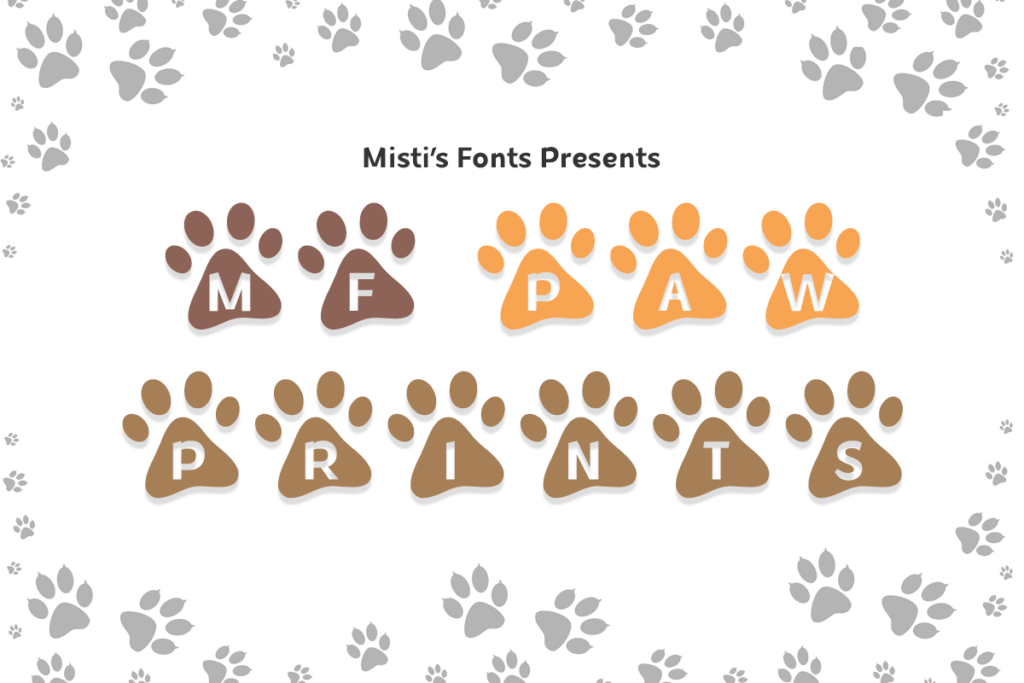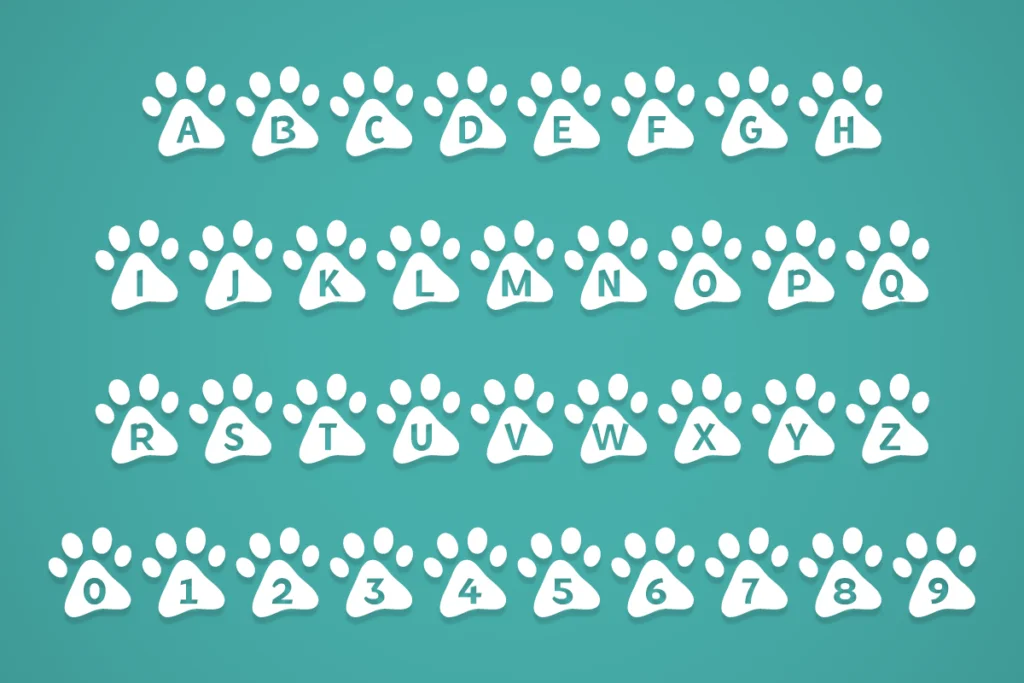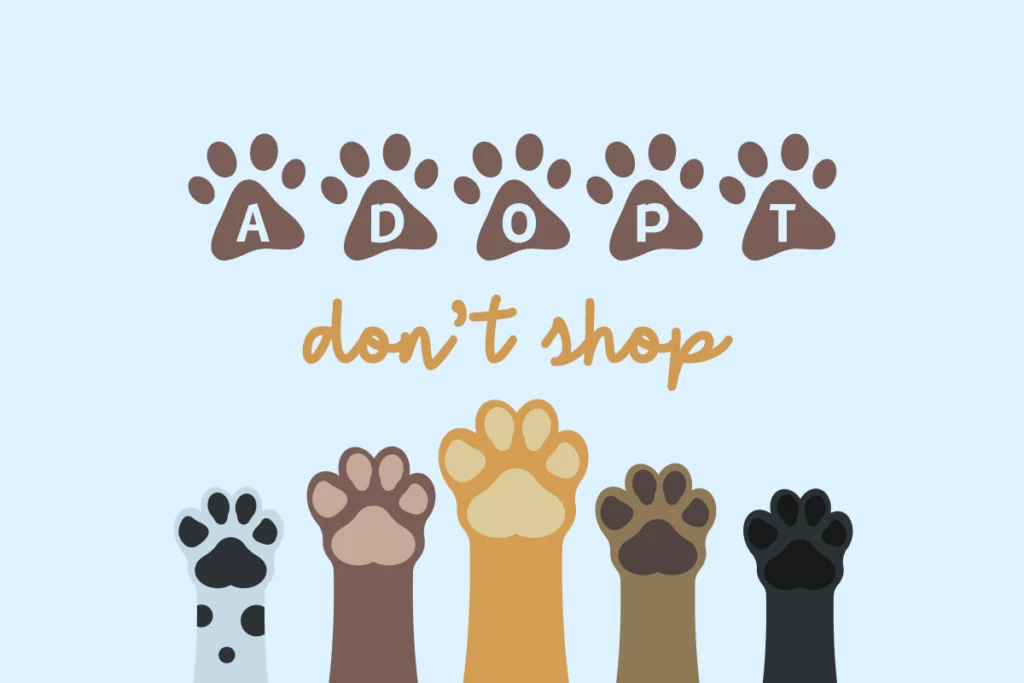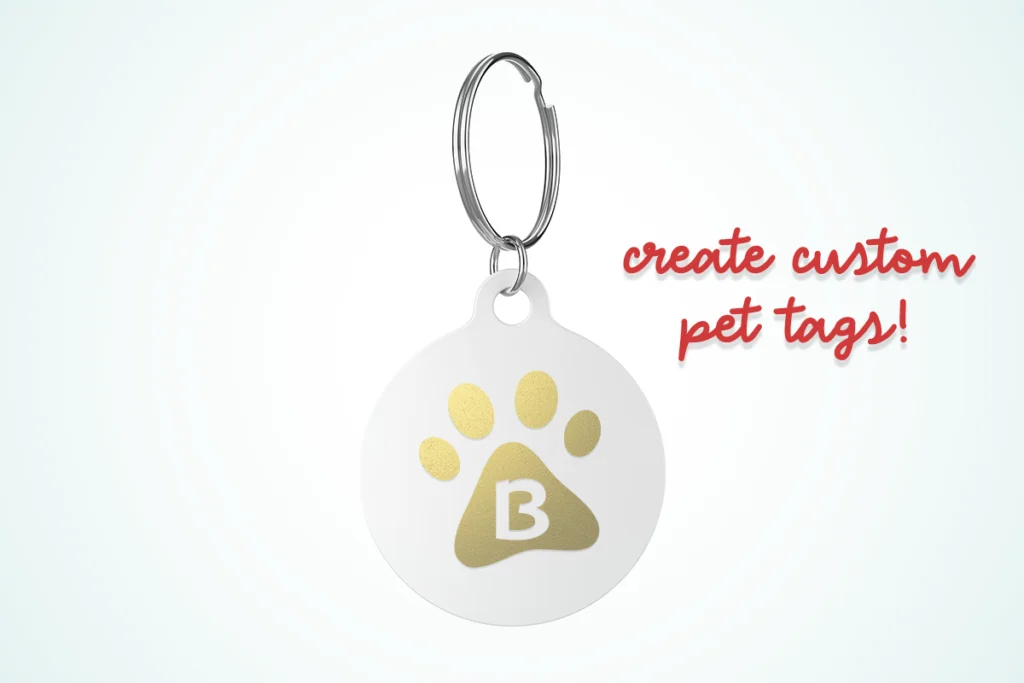
Mf Paw Prints
MF Paw Prints is an adorable decorative typeface that is perfect for creating customized pet-related products, as well as, cute gifts for the pet lover in your life. It would also be a great fit for veterinarian offices, humane societies, and any other pet-related organizations or businesses.